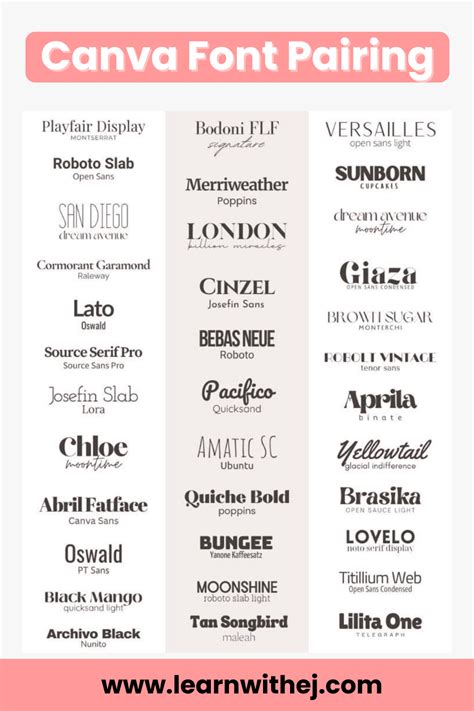
Canva Font Pairing. Web canva's ultimate guide to font combinations 01. Design publication font combination:league spartan + libre baskerville.
Tan mon cheri + the artist. Web 40+ best canva font combinations 1. If you’re looking for a canva font combination that exudes modernity and playfulness, look no. Web canva's ultimate guide to font combinations 01. Pair fonts with different weights to create a strong. Pair a tall and short font to create visual interest. In today’s article, i've made a list of 23 outstanding font combinations and font pairings of canva fonts and typefaces. League spartan + libre baskerville. Of these, my top three favorites are: Pair a regular and bold font to create a subtle contrast.
Balance a script font with a bold font. If you want to achieve that sleek, seamless look in your design, then this font. Tan mon cheri + the artist. Design publication font combination:league spartan + libre baskerville. Web 40+ best canva font combinations 1. Web canva's ultimate guide to font combinations 01. In today’s article, i've made a list of 23 outstanding font combinations and font pairings of canva fonts and typefaces. Balance a script font with a bold font. Web 26 canva font pairings for your next design. If you’re looking for a canva font combination that exudes modernity and playfulness, look no. League spartan is a modern typeface with.